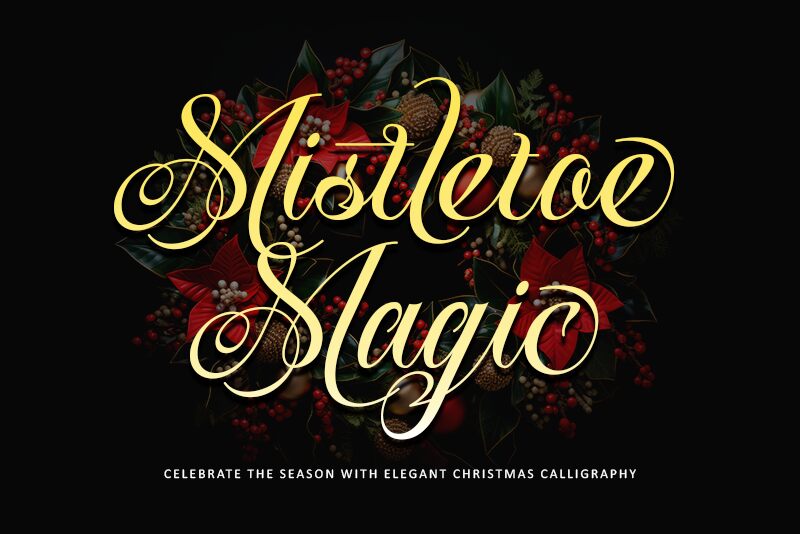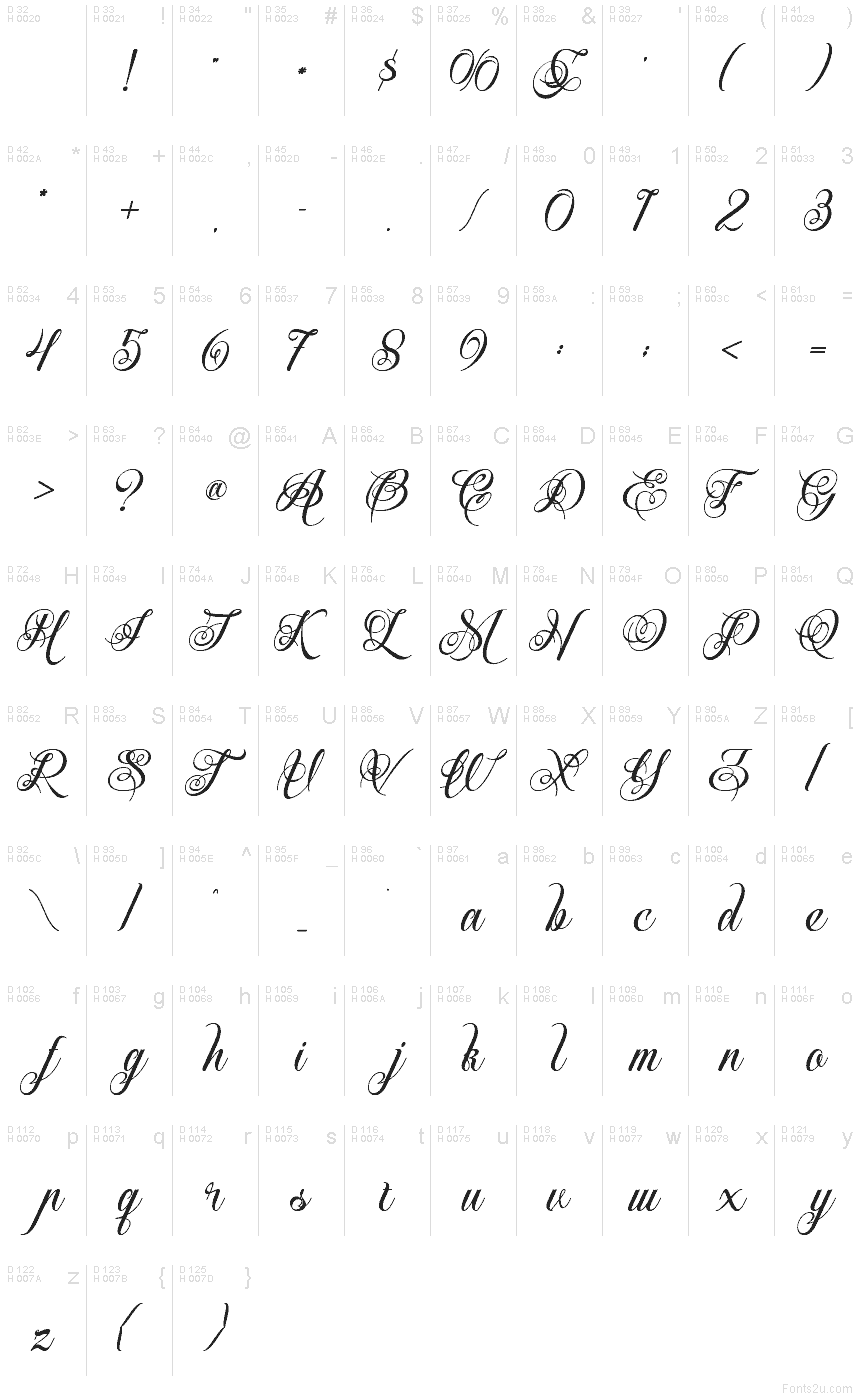
Mistletoe Magic font by Letterara is a free Christmas calligraphy typeface that looks like it’s been brushed onto frosted glass. Long, looping strokes swirl around each letter, with delicate hairlines that feel elegant yet festive—like handwritten greetings on a vintage holiday card. The letters connect in a smooth, flowing rhythm, giving your text that cozy, handwritten charm without feeling messy or rushed.
Using Mistletoe Magic, headlines and names instantly feel special on holiday cards, gift tags, party invitations, seasonal branding, and Instagram graphics. This free font also shines on product packaging and festive signage where you want a romantic, wintry script. Pair it with a clean sans serif in small caps for dates or secondary text, and let Mistletoe Magic take center stage at larger sizes so its graceful swirls stay crisp and readable.